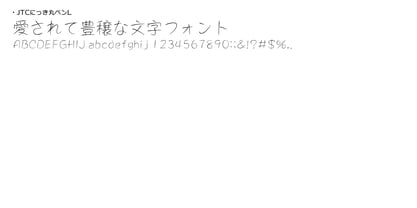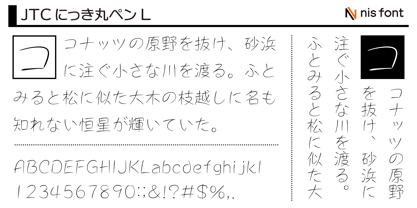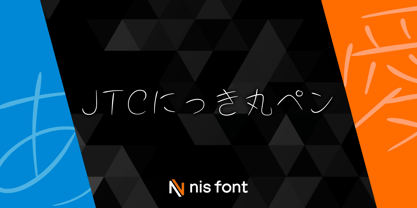
OT-NIS_NKRP
This is the penmanship version of "OT-NIS_NIK". It combines the gentle and warm handwritten feel with an added touch of charm. Supports the JIS2004 character set.